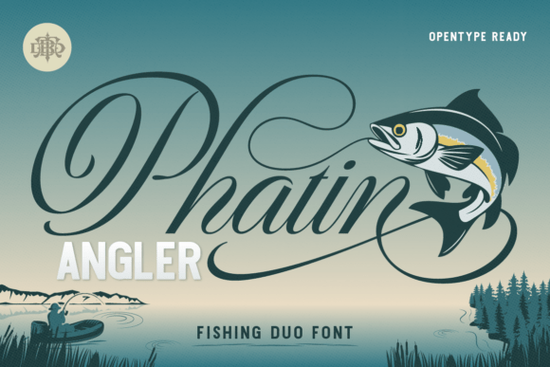
If you're designing for outdoor brands, fishing gear, craft beer labels, or adventure-themed merchandise, Phatin Angler Font offers a fresh and authentic way to bring your ideas to life. This font duo combines a flowing script with a clean sans-serif companion perfect for creating balanced, professional designs that stand out without feeling forced.
What makes Phatin Angler special?
Unlike generic fonts that feel one-size-fits-all, Phatin Angler was made with the outdoors in mind. The script version features elegant swashes that naturally mimic the motion of a fishing line casting through the air smooth, rhythmic, and full of movement. It’s not just decorative; it adds personality to titles and headlines while keeping them readable.
The matching sans-serif typeface is clean and modern, offering contrast that helps your text hierarchy shine. Use the script for logos, taglines, or poster headers, and the solid sans-serif for body copy, product details, or event information. Together, they create a cohesive look that feels intentional and well-designed.
Why this pairing works for outdoor and marine branding
When you’re working on anything related to fishing, sailing, or adventure travel, authenticity matters. Phatin Angler brings a subtle nautical vibe without relying on clichés like anchors or waves. Instead, its fluid lines and timeless style give your brand a refined, lived-in feel like something you’d see on a well-worn tackle box or a weathered lodge sign.
It’s especially useful for:
- Fishing apparel and gear labels
- Craft beer packaging with an adventurous twist
- Lodge signage or event posters for outdoor festivals
- Vintage-inspired design projects with a modern edge
These fonts aren’t meant to compete they’re designed to work together. If you’re building a brand identity across multiple products, having a consistent visual language is key. Phatin Angler gives you a strong foundation for that.
Where can you use it beyond branding?
Beyond logos and packaging, this font duo shines in print-on-demand items. Think T-shirts with catchy slogans like “Catch More Than Just Fish,” mugs with coastal quotes, or tote bags for weekend getaways. The script adds charm without overwhelming the message, and the sans-serif keeps things clear and functional.
You can also use it in digital content social media graphics, email newsletters, or even e-books about outdoor adventures. Its versatility means it won’t limit your creativity, no matter what platform you’re on.
Final tip before you start designing
Before finalizing any project, test both fonts at different sizes. The script looks stunning at large sizes (like headers), but may lose clarity when scaled down. Pair it with the sans-serif for balance, and always leave enough white space around text to keep your layout easy to read.
Now that you know how Phatin Angler works, try it on your next outdoor-themed project. Whether you’re launching a new product line or updating your shop’s visuals, this font duo gives you a simple yet powerful tool to express your brand’s story.